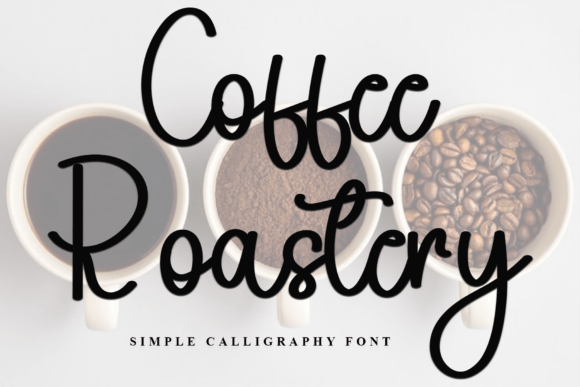
Coffee Roastery Font: Elevate Your Designs with a Unique and Eye-Catching Typeface
In the world of typography, fonts play a crucial role in conveying messages, expressing emotions, and creating visual identities. For designers, crafters, and creative professionals, finding the perfect font can be a daunting task. However, if you’re looking for a beautiful and eye-catching font that can add a touch of uniqueness to your designs, look no further than Coffee Roastery Font. In this article, we’ll explore the features, benefits, and uses of Coffee Roastery Font, and why it’s an excellent choice for your next design project.
What is Coffee Roastery Font?
Coffee Roastery Font is a stunning and distinctive typeface designed with a soft, unique touch. Its creator has carefully crafted each stroke to give it a special character, making it both meaningful and versatile for future use. This font is perfect for designers who want to add a personal touch to their work, whether it’s for a logo, branding, packaging, or any other design project.
Coffee Roastery Font boasts a range of characters, making it an excellent choice for a wide range of design applications. Its natural font style is compatible with various applications, including Windows and open-source platforms, ensuring that you can use it across different software and operating systems.
Key Features of Coffee Roastery Font
- Unique and Eye-Catching Design: Coffee Roastery Font features a distinctive and soft design that sets it apart from other fonts.
- Versatile and Meaningful: Its special character and strokes make it a meaningful and versatile font for various design projects.
- Wide Range of Characters: The font comes with a range of characters, making it perfect for designs that require a high level of customization.
Benefits of Using Coffee Roastery Font
Coffee Roastery Font offers several benefits that make it an excellent choice for designers, crafters, and creative professionals. Some of the benefits include:
- Enhance Your Designs: Coffee Roastery Font can elevate your designs, making them more appealing to a wide range of audiences across different artistic and creative fields.
- Stand Out from the Crowd: With its unique and eye-catching design, Coffee Roastery Font can help you stand out from the competition and establish a distinctive visual identity.
- Time-Saving: The font’s versatility and wide range of characters can save you time and effort in designing and customizing your projects.
Use Cases for Coffee Roastery Font
Coffee Roastery Font is a versatile typeface that can be used in a variety of design projects, including:
- Logo Design: Create a unique and memorable logo for your business or brand with Coffee Roastery Font.
- Branding and Packaging: Use the font to create a consistent visual identity across your branding and packaging materials.
- Graphic Design: Add a touch of elegance and sophistication to your graphic designs, such as brochures, flyers, and posters.
- Crafting and DIY Projects: Coffee Roastery Font is perfect for crafters and DIY enthusiasts who want to add a personal touch to their projects.
Tips for Using Coffee Roastery Font
To get the most out of Coffee Roastery Font, here are some tips to keep in mind:
- Experiment with Different Sizes and Colors: Play around with different font sizes and colors to find the perfect combination for your design.
- Pair it with Other Fonts: Combine Coffee Roastery Font with other fonts to create a unique and visually appealing typography.
- Use it Consistently: Use Coffee Roastery Font consistently across your design projects to establish a strong visual identity.
In conclusion, Coffee Roastery Font is a beautiful and eye-catching typeface that can elevate your designs and add a touch of uniqueness to your projects. Its versatility, wide range of characters, and compatibility with various applications make it an excellent choice for designers, crafters, and creative professionals. Whether you’re looking to create a logo, branding materials, or graphic designs, Coffee Roastery Font is a cost-effective and time-saving solution that can help you stand out from the crowd.